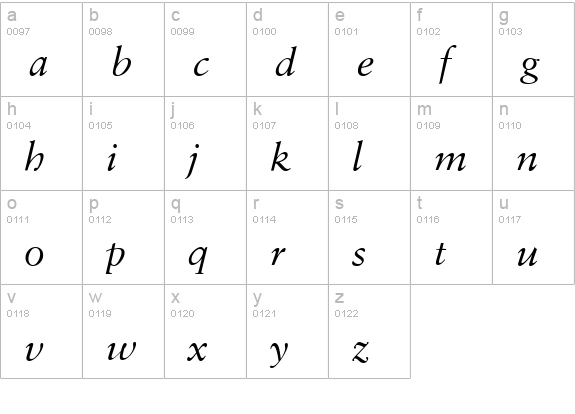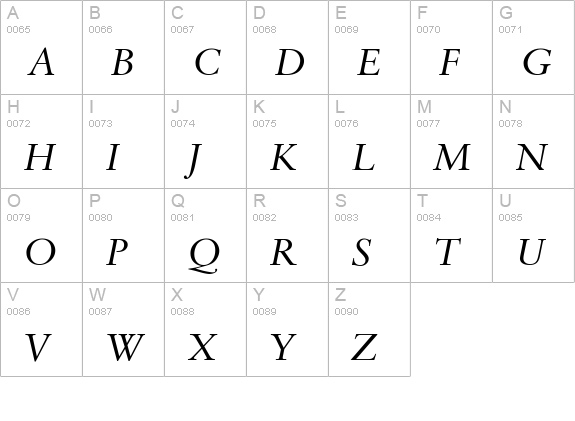
Savoy-Italic is a distinctive, italic variant in the Savoy typeface family \xE2\x80\x94 well suited to design and typography projects.
Savoy-Italic font exudes elegance and sophistication with its sleek and slanted letterforms. The delicate curves and graceful strokes of this typeface give off a sense of refinement and style, making it the perfect choice for projects that require a touch of sophistication. The italicized design adds a sense of movement and fluidity to the text, making it visually appealing and engaging to readers. Best of all, Savoy-Italic font is available for free download at FontsMarket.com. This means that you can easily access this exquisite typeface without any cost, making it a valuable addition to your font collection. Whether you're working on a design project, creating invitations, or designing a logo, Savoy-Italic font is sure to elevate your work to new heights with its timeless elegance and charm. Download this stunning font today and add a touch of class to your designs!